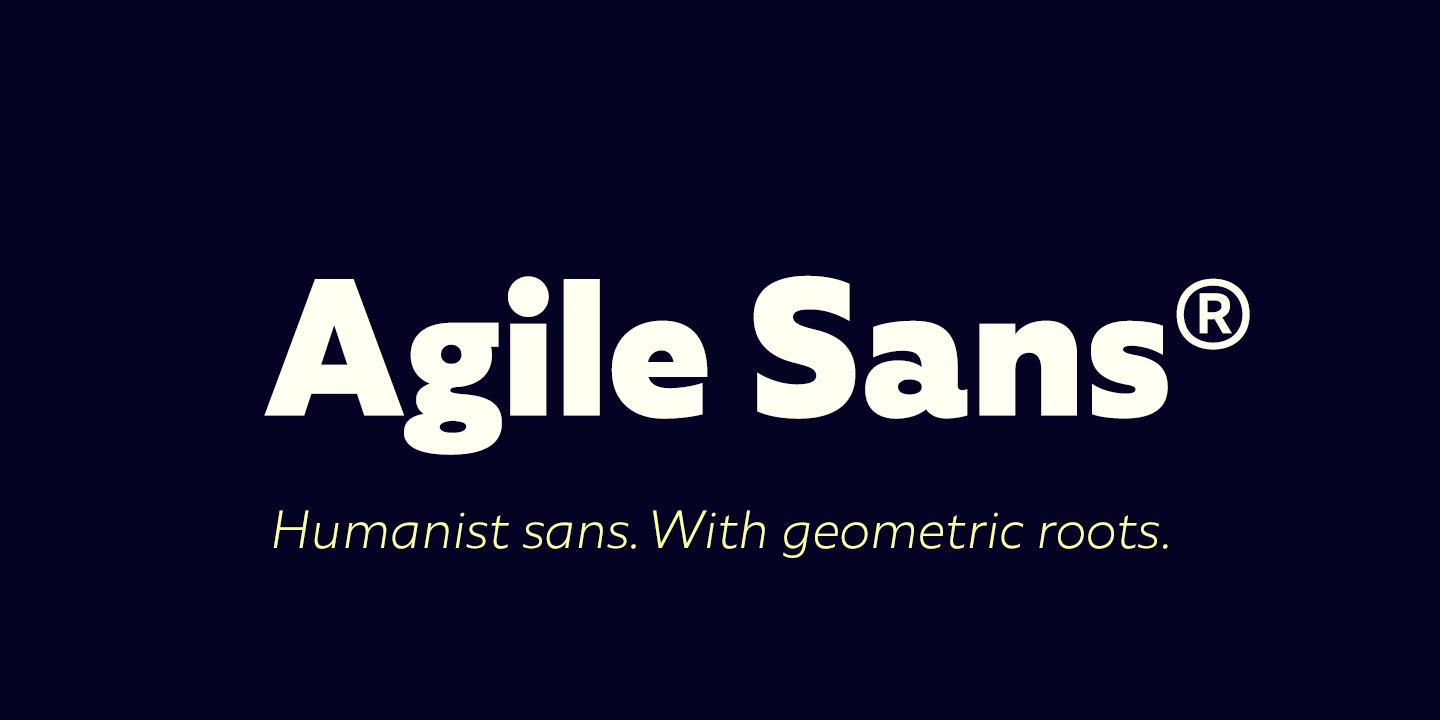
Agile Sans Font is perfect for technology startup branding, software development materials, lean business presentations, digital transformation campaigns, innovation lab signage, modern workflow documentation, agile methodology guides, dynamic app interfaces, fast-paced marketing materials, and responsive web design projects.
Agile Sans Font is exciting because it embodies the principles of rapid adaptation and efficient execution through its streamlined, velocity-inspired letterforms that communicate speed, flexibility, and forward momentum while delivering messages with contemporary precision and innovative energy.
Agile Sans Font family includes Regular, Bold, Light, Sprint, Italic, Condensed, Rapid, and Velocity variations, offering designers a complete agility toolkit to create dynamic visual communications that capture the essence of modern business methodology and technological innovation across fast-moving applications.
Agile Sans Font represents the evolution of modern business thinking and technological advancement, making it an essential choice for organizations that embrace rapid iteration, continuous improvement, and adaptive strategies in competitive markets. This dynamic typeface brings contemporary efficiency to any design project, whether you're developing tech company identities, creating project management tools, or designing educational materials about modern business practices. The optimally engineered character geometry of Agile Sans Font Free Download ensures maximum clarity while maintaining the energetic aesthetic that appeals to innovation-focused teams and technology-driven organizations seeking competitive advantages through operational agility.
Technology industry professionals consistently choose Agile Sans Font for software companies, consulting firms, and digital transformation initiatives because of its ability to communicate adaptability, efficiency, and forward-thinking methodology. The font's streamlined appearance makes it particularly effective for targeting progressive businesses and creating brand experiences that emphasize continuous innovation and competitive responsiveness.
Agile Sans Font excels in digital product and service environments where user experience and rapid iteration are critical success factors. Product development teams, user experience designers, and innovation consultants rely on this font to create materials that reflect their commitment to efficient processes and adaptive solutions.
The consulting and training sectors have embraced Agile Sans Font for business transformation services, methodology training programs, and organizational development materials. Its dynamic visual character helps professionals create communications that inspire change and efficiency, appealing to organizations seeking to modernize their operations and embrace the agile mindset necessary for thriving in rapidly evolving markets.